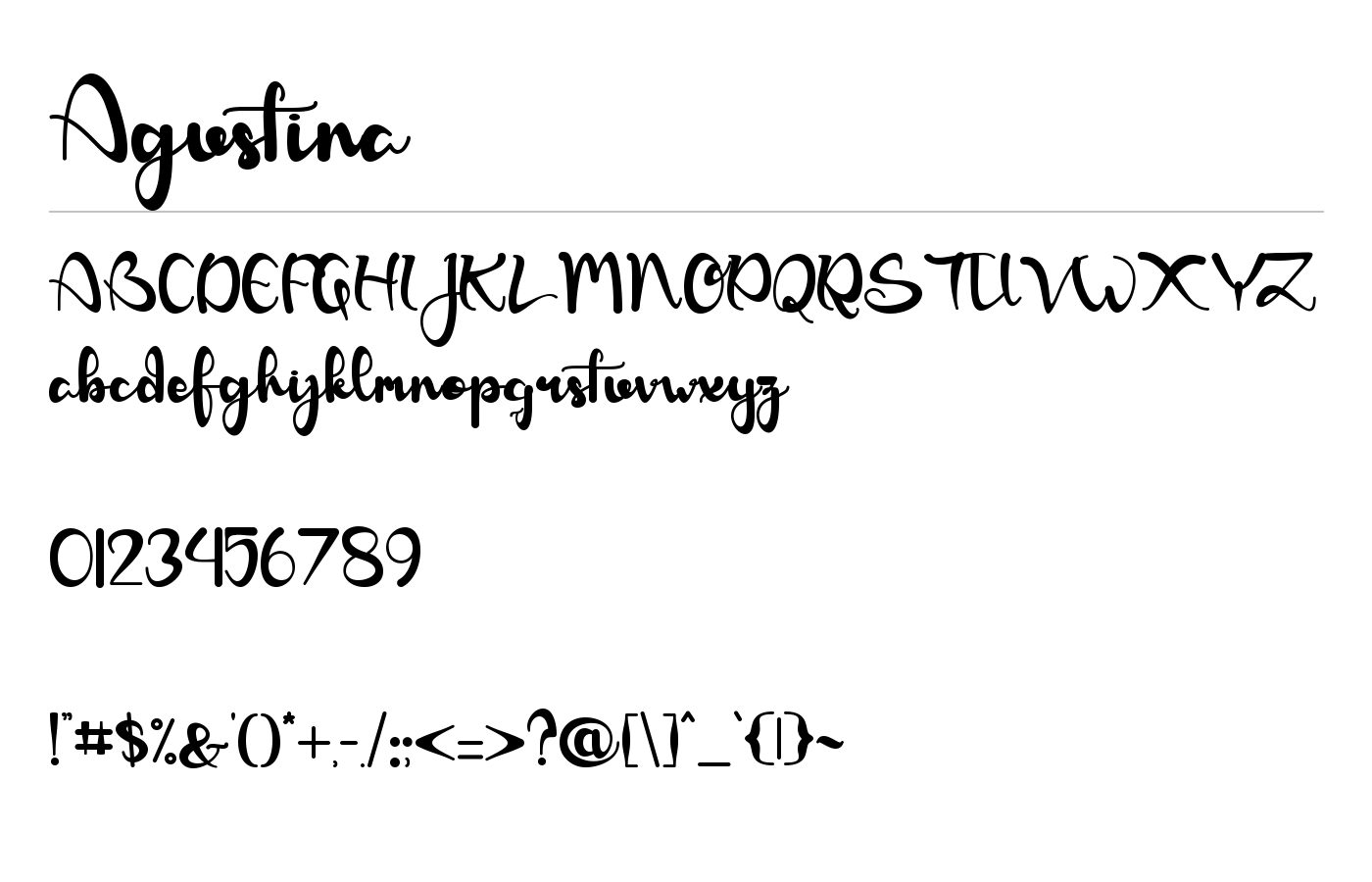
Agustina is a playful, handwritten script font featuring smooth, rounded strokes with a moderate weight and lively curves that give it a casual yet stylish feel. Its unique letterforms, including looped ascenders and distinctive uppercase characters, make it perfect for adding a personal, friendly touch to invitations, branding, and creative projects. This font works especially well in display uses where its charming personality can shine, offering a warm and approachable vibe.
Agustina Font
About Agustina Font
| Font family | Agustina Font |
| Designer | Arkrist Letter |